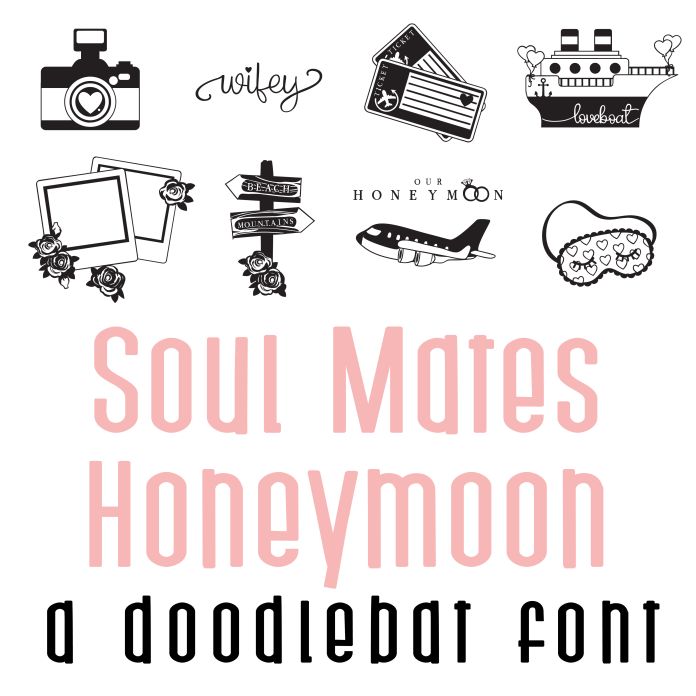
This beautiful doodlebat font features 26 travel and honeymoon themed images. Perfect for cards, crafts, gifts, decor, scrapbook pages, planner stickers, and more!